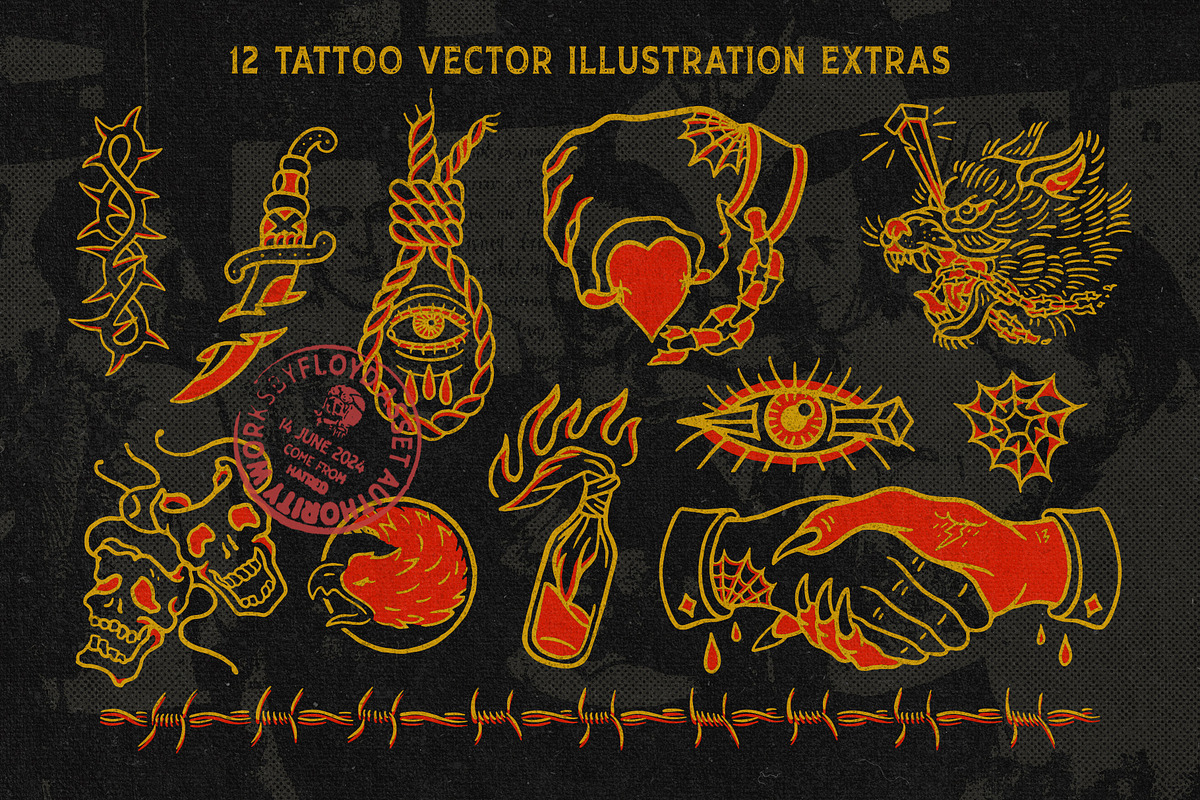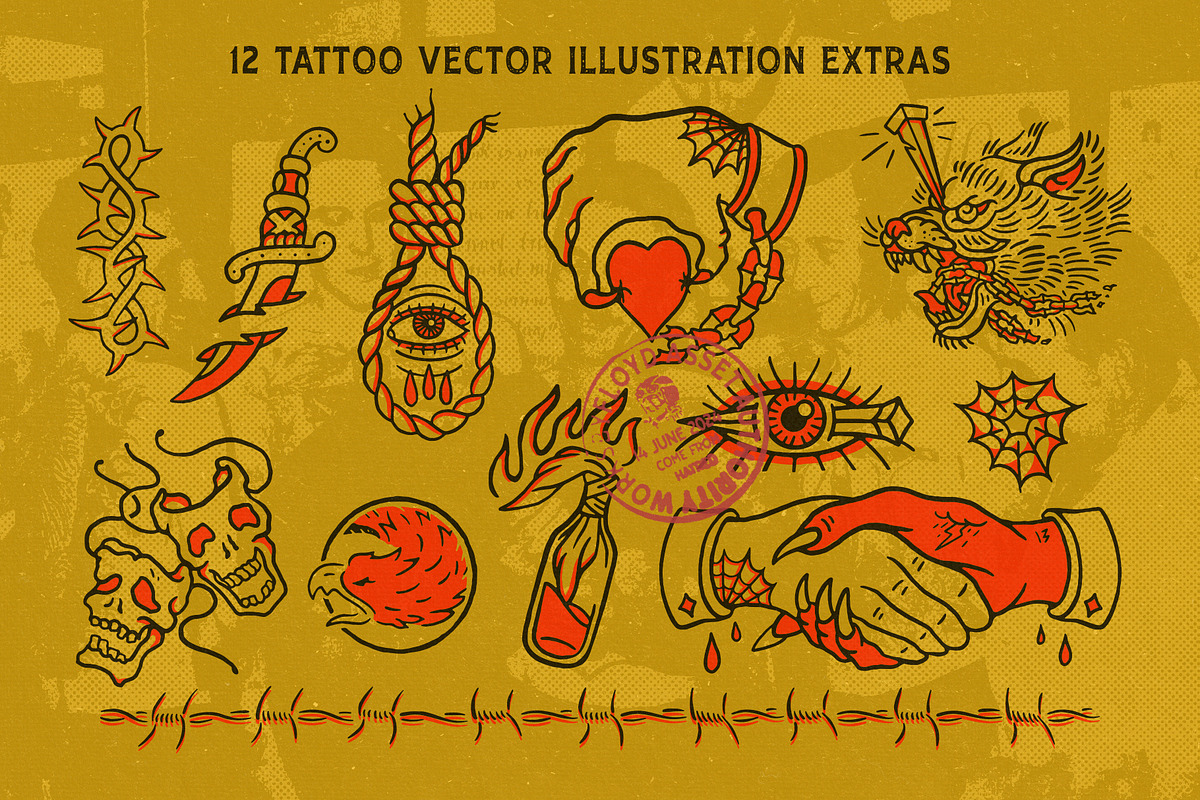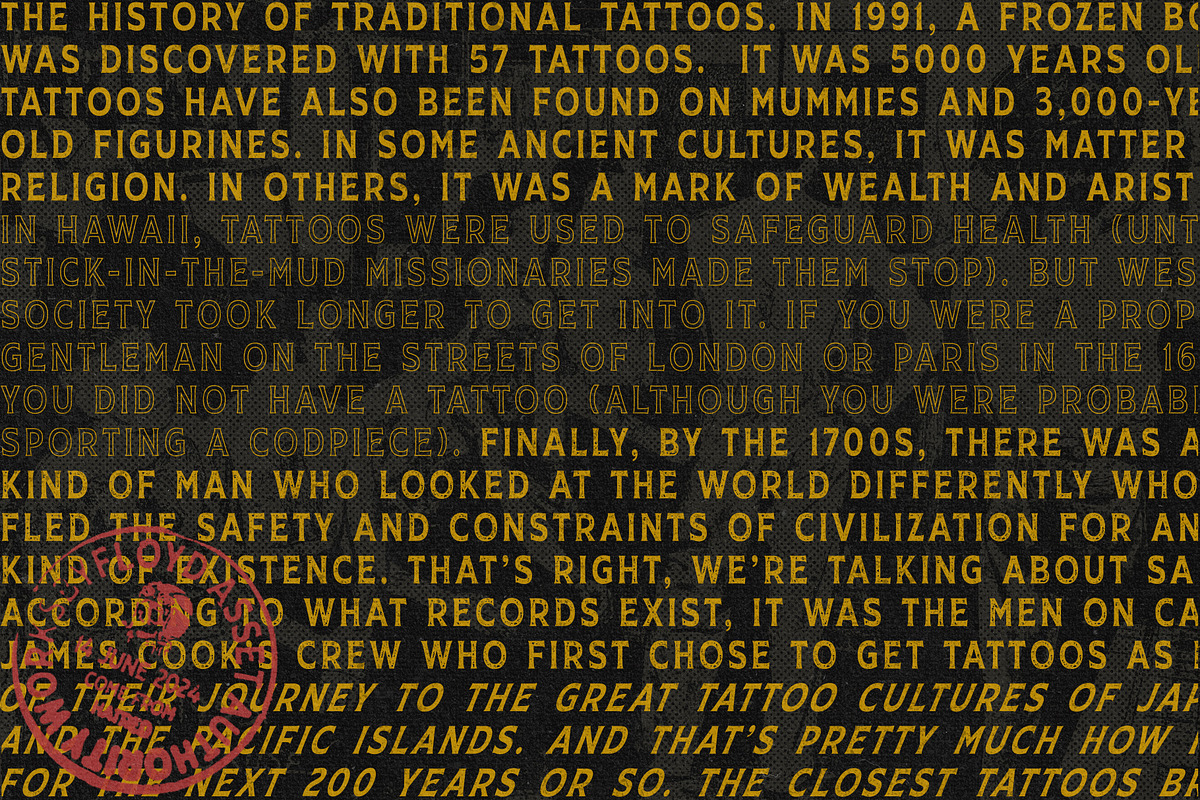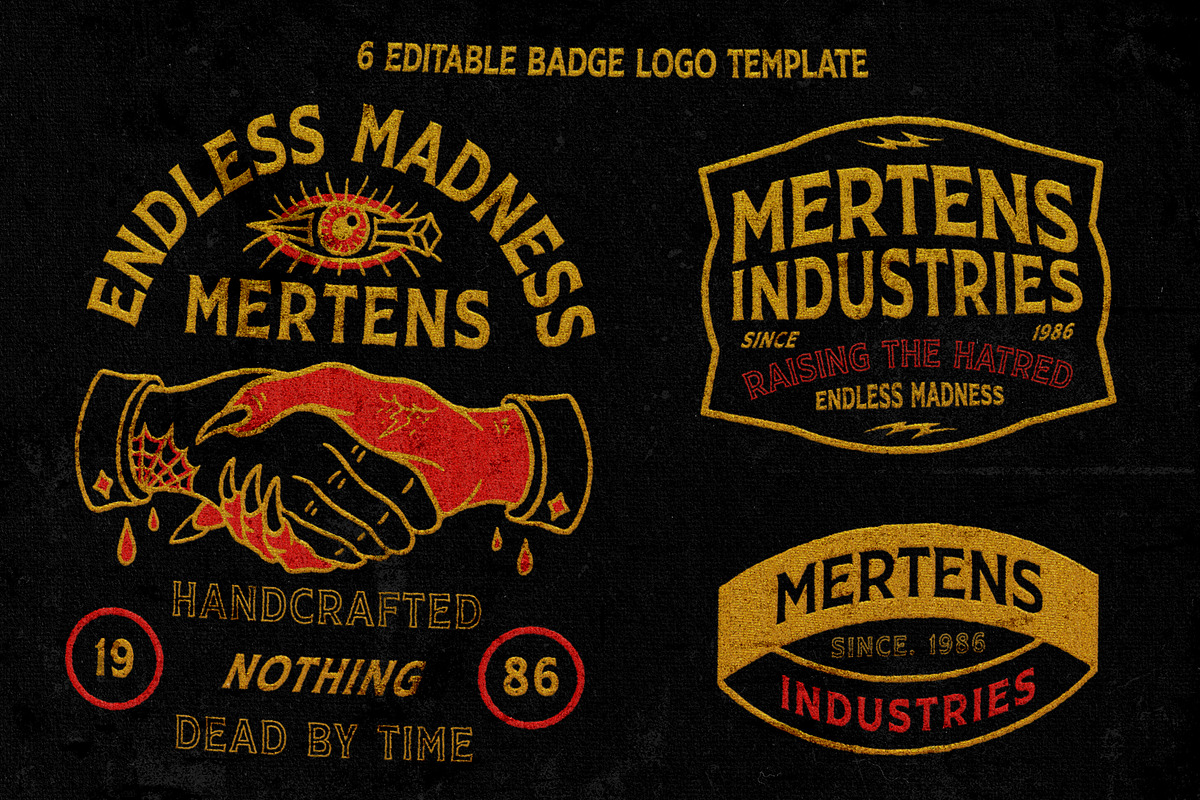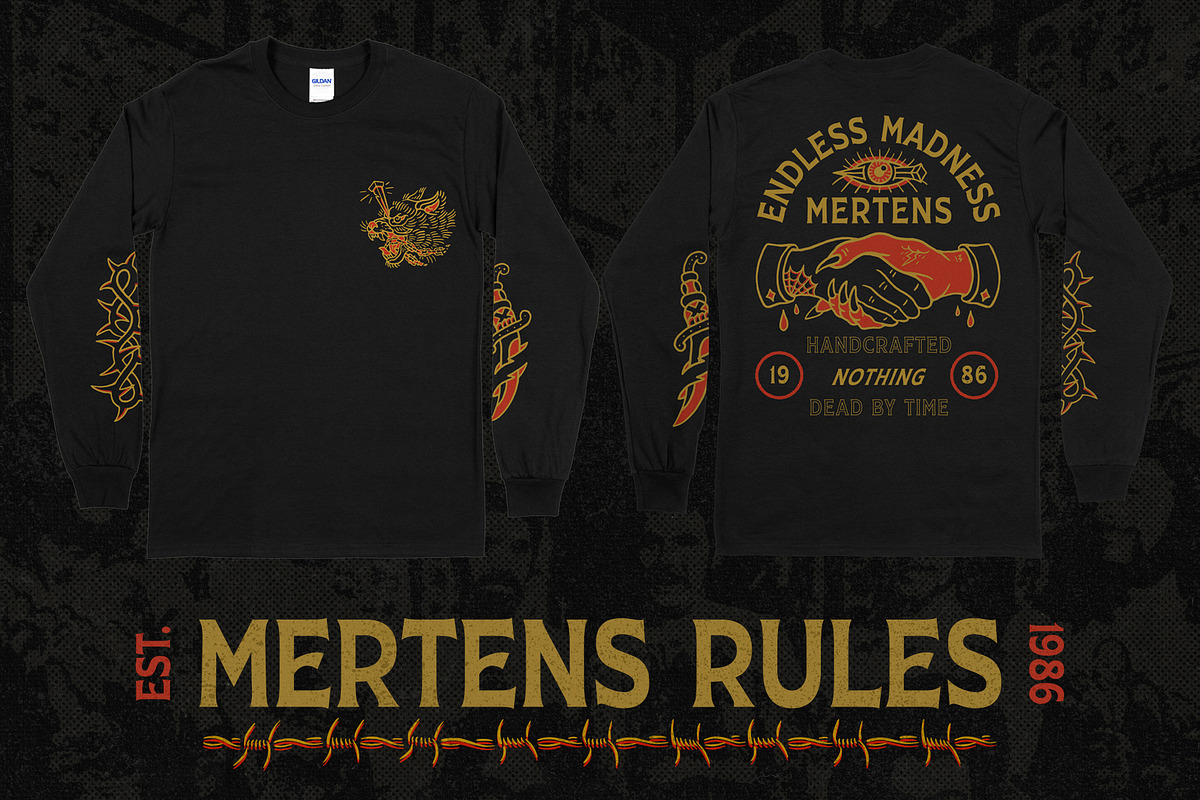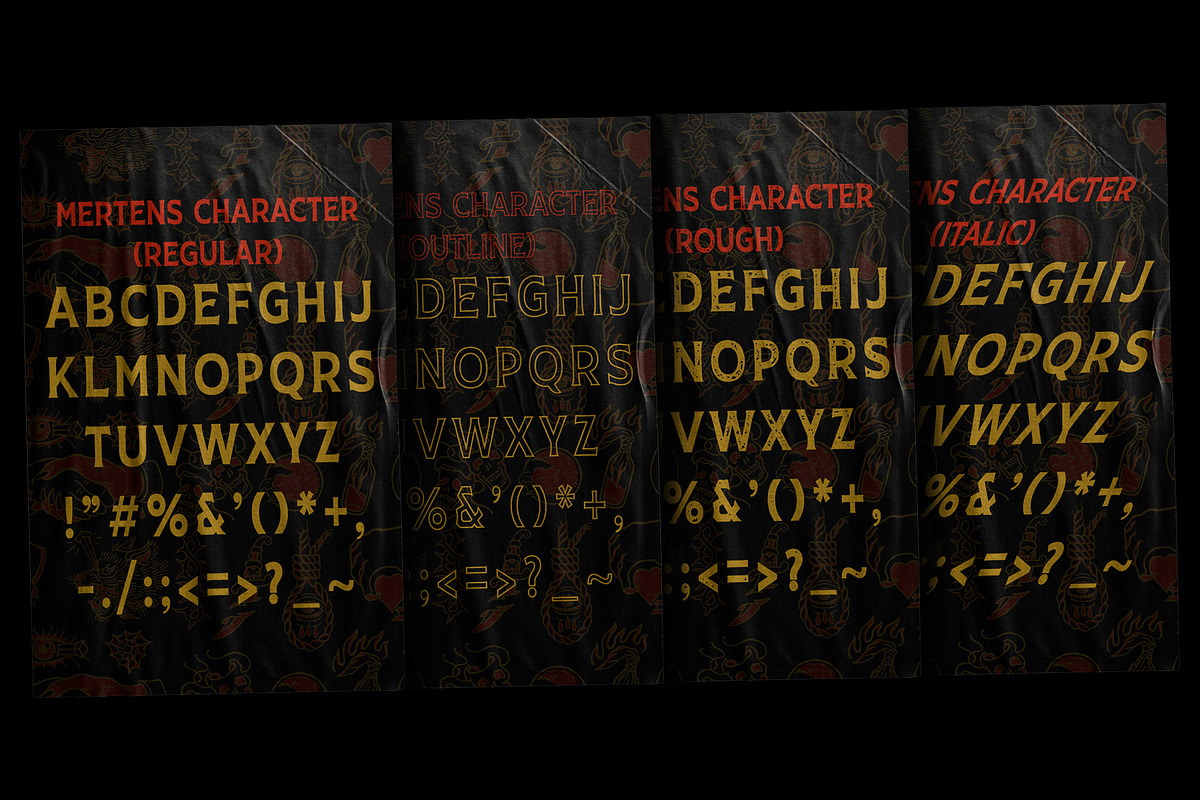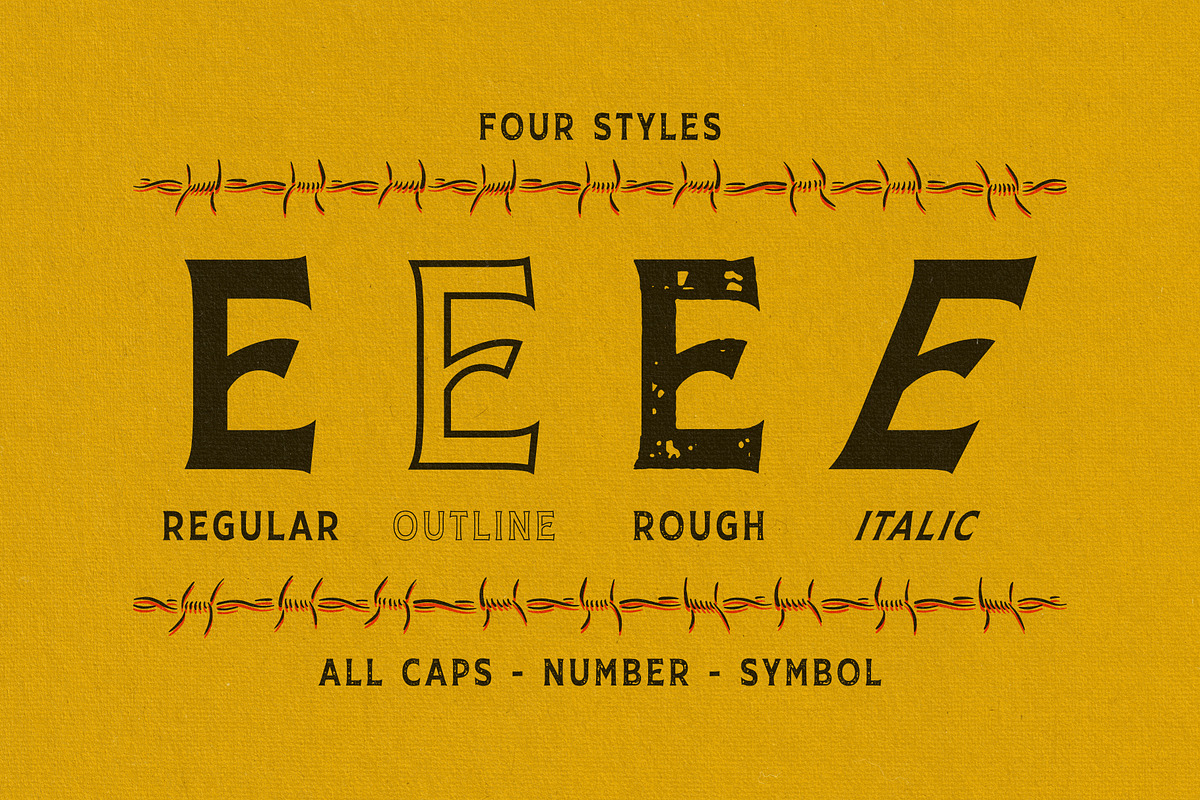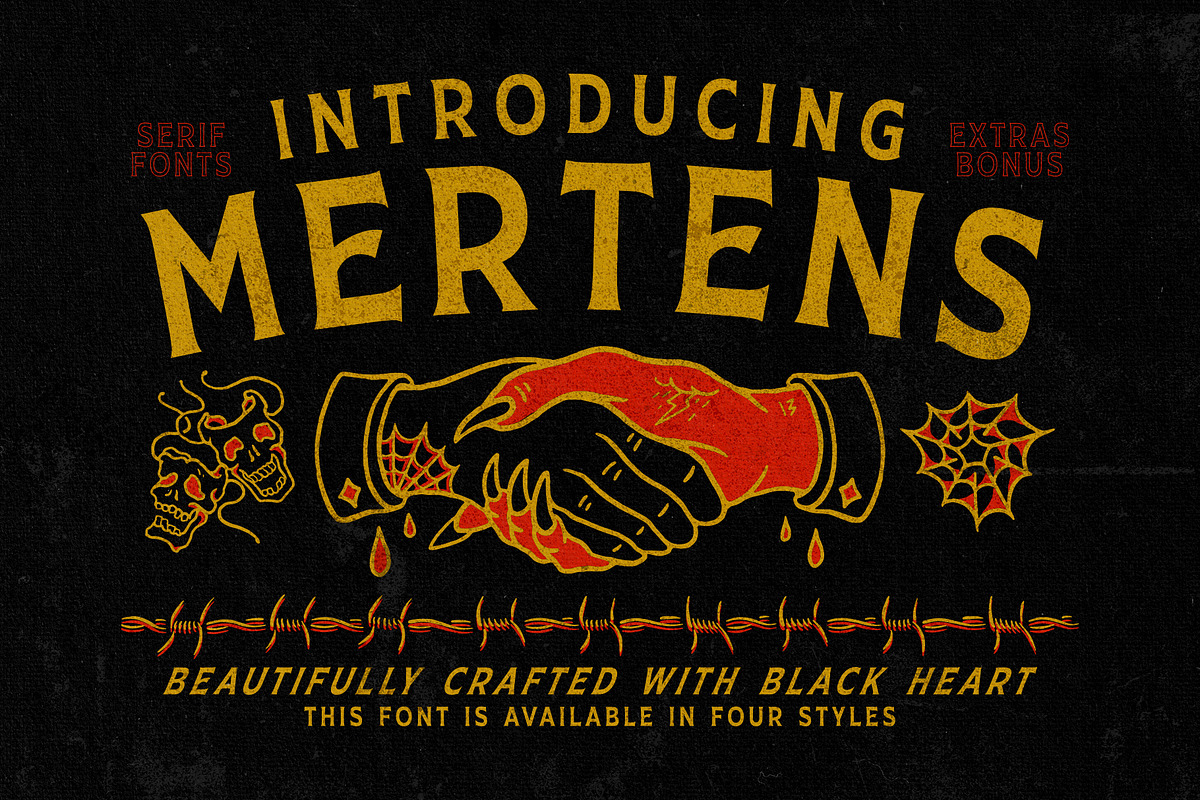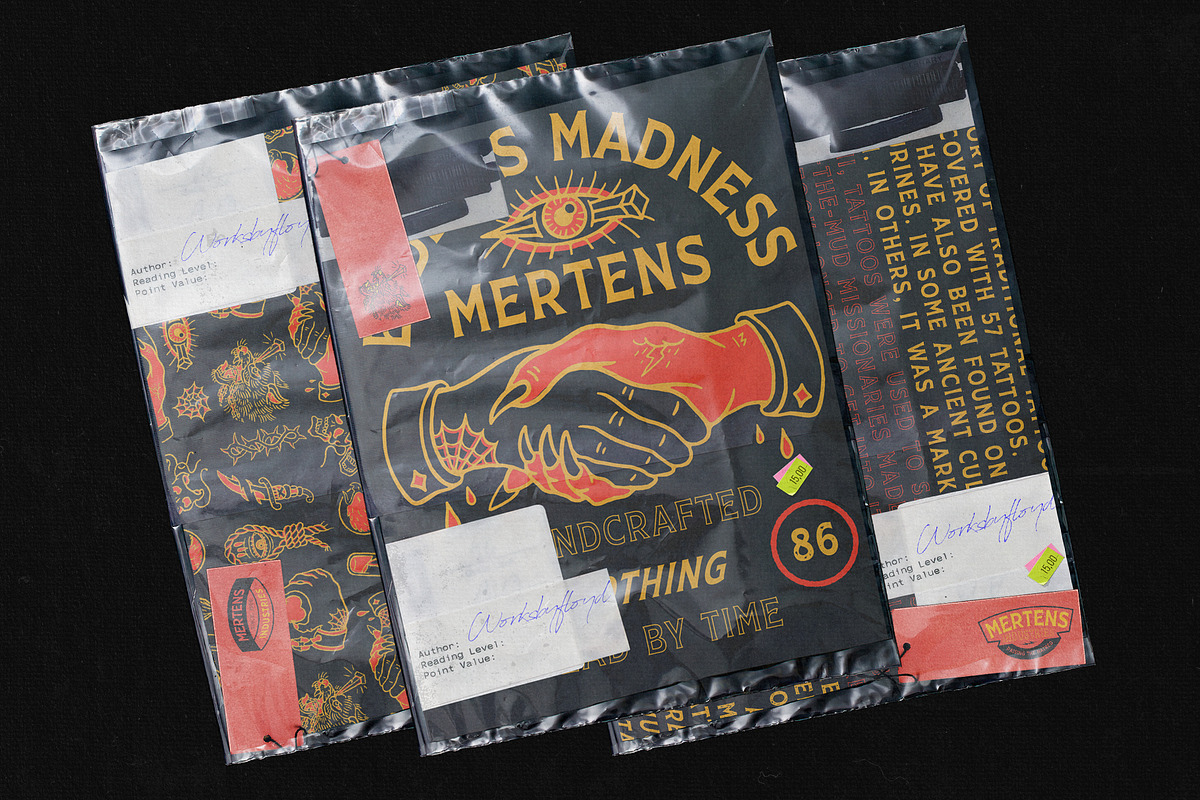
Mertens + Traditional Tattoo Extras
Mertens Typeface and Traditional Tattoo Illustration Extras
This font was inspired by the vintage t-hsirt design on my old archive and it's come with traditional tattoo that i love to combine and it's great!